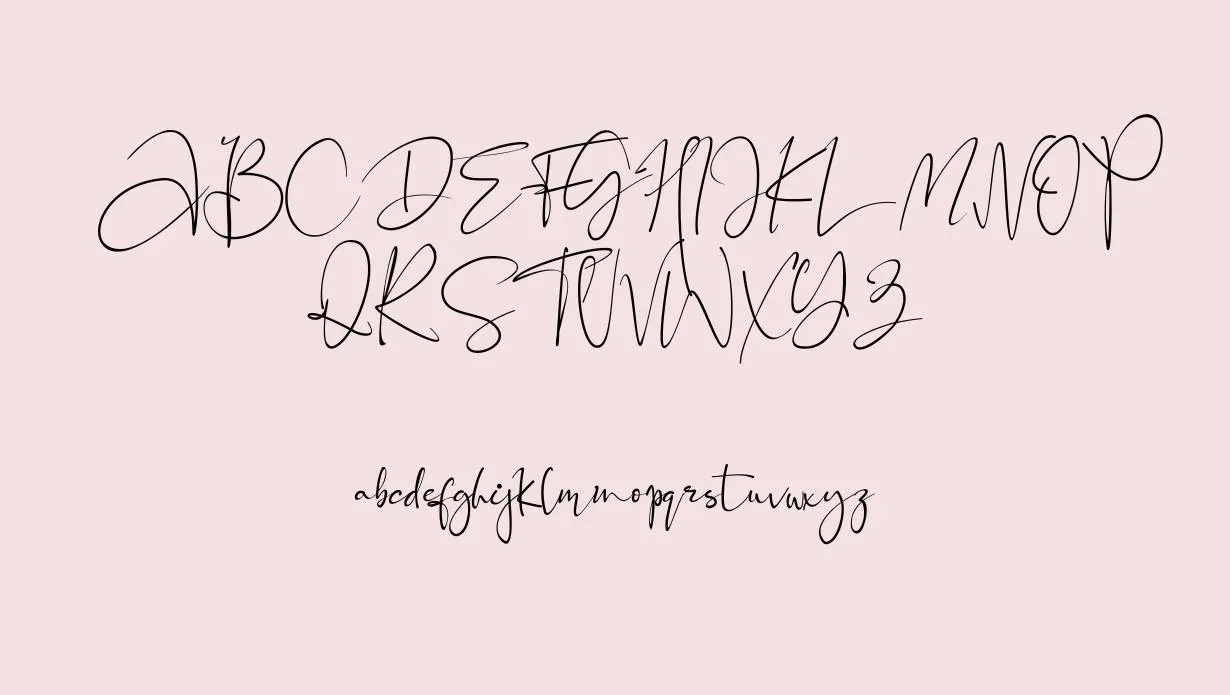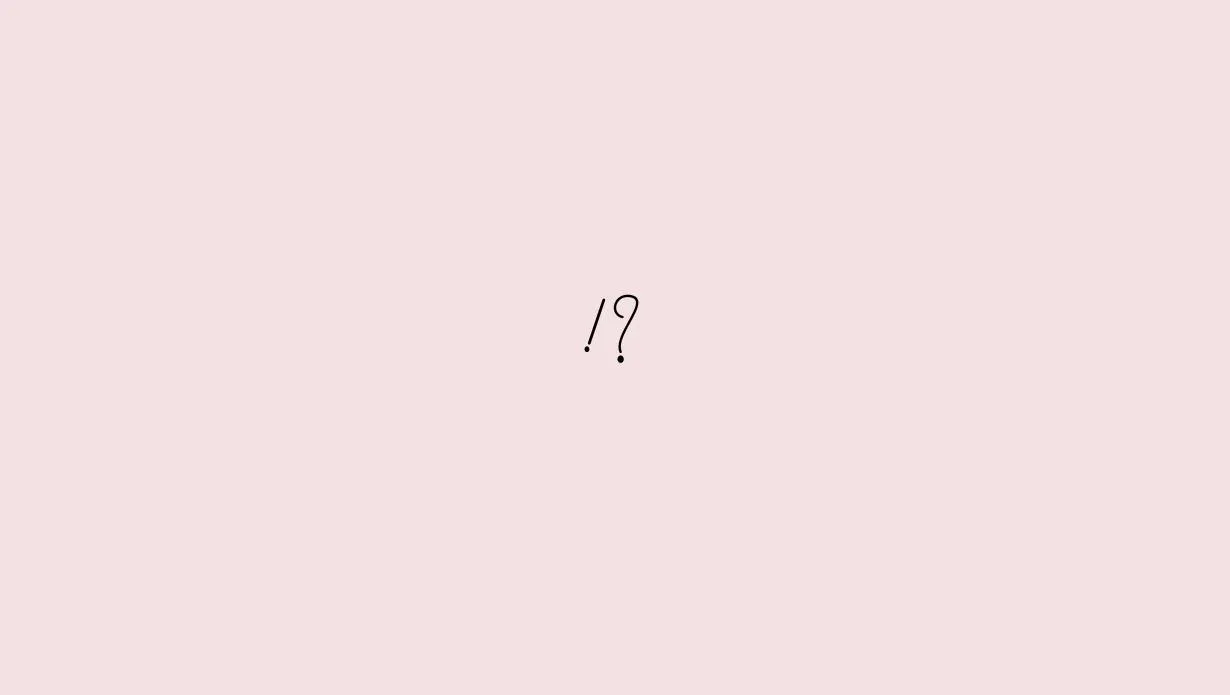
Black Pink Signature Font is a script font that was crafted by Letterara in 2019. This typeface is available in TTF and OTF formats. It also contains stylish uppercase, lowercase, numbers, punctuations, symbols, signs, alternates, accents, swashes, ligatures, and some special characters.
This stunning typeface is made to give a natural touch to any content, you can also pair this font with abc cursive font for attractive projects. This typeface is compatible with macOS, Canva, CorelDraw, Sketch, iOS, Figma, Web, Windows, Photoshop, Adobe, Android, etc.